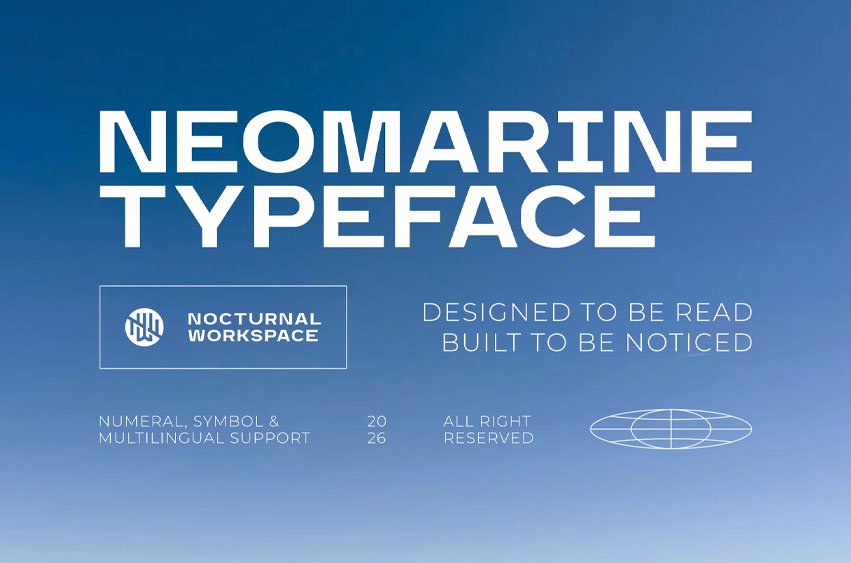
Neomarine Typeface Font works perfectly for headlines, logos, posters, branding projects, album covers, merchandise, and music-related designs. Its funky and energetic style makes it ideal for creative projects that need personality and rhythm.
Whether you’re creating retro branding, bold typography, or expressive display text,
A Modern Sans Serif Font
- Includes a range of multilingual characters.
- PUA Encode Characters, fully accessible without additional design software.